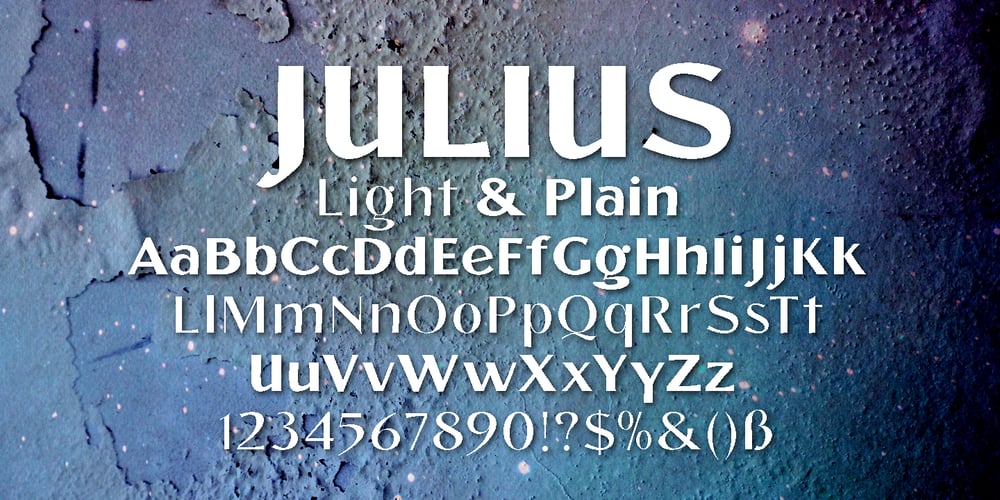
Julius
Julius font
Julius Font Family was designed by Gert Wiescher and published by Wiescher Design. Julius contains 2 styles and family package options. Julius comes in very handy if you want to jump back in time to the middle of the last century. Julius is also one of my first typefaces, recently I added the light version. Enjoy your trip back into the past, Gert Wiescher